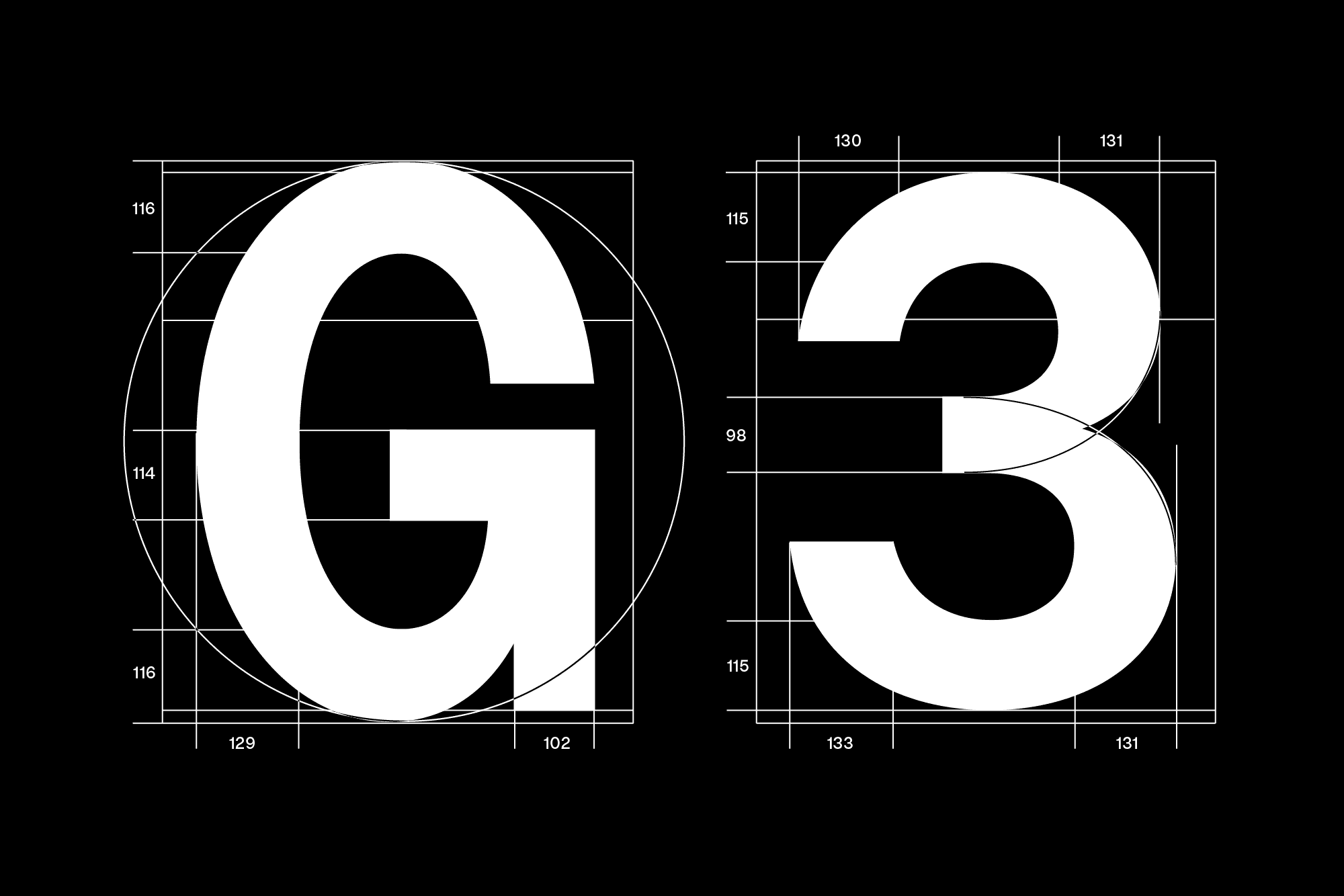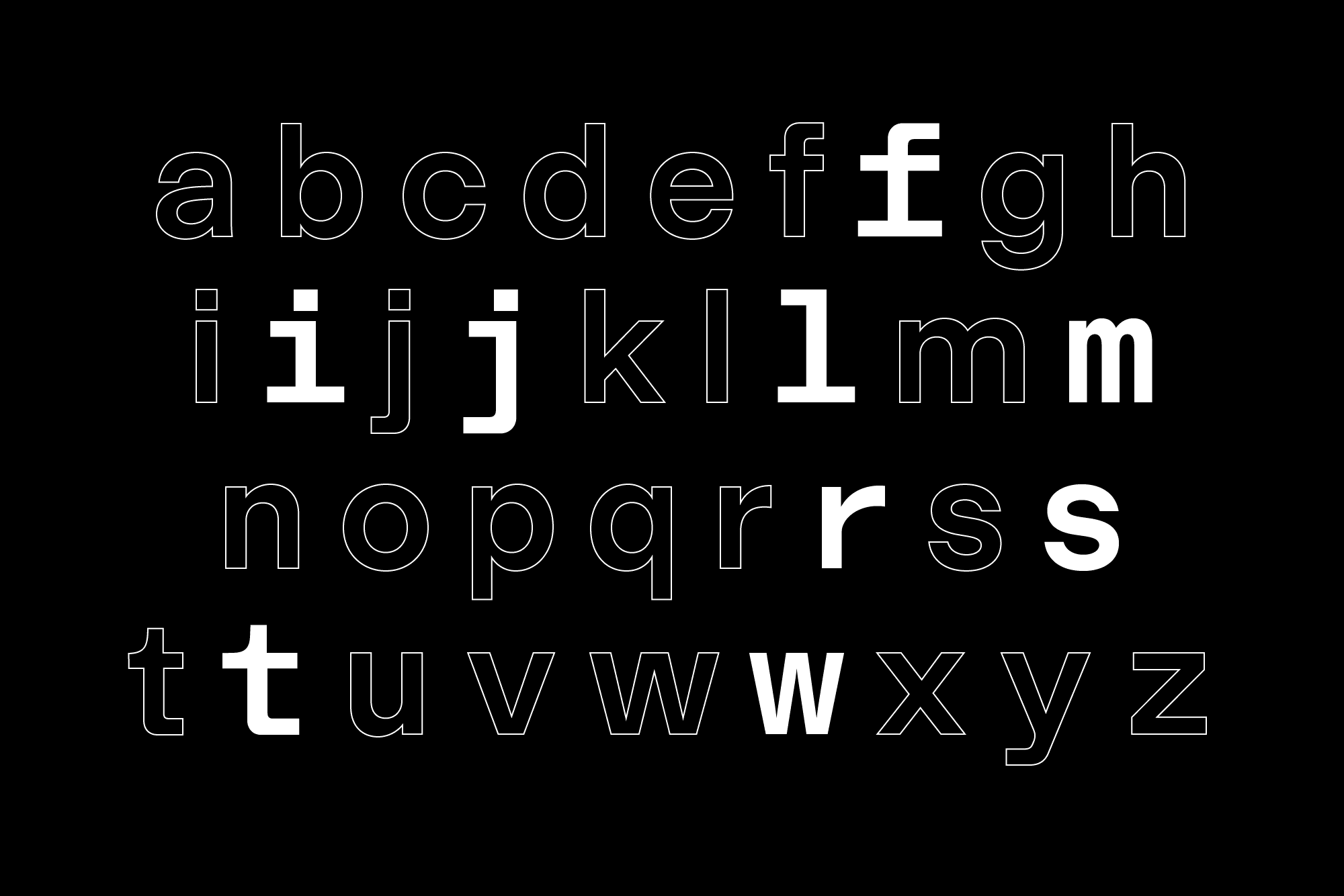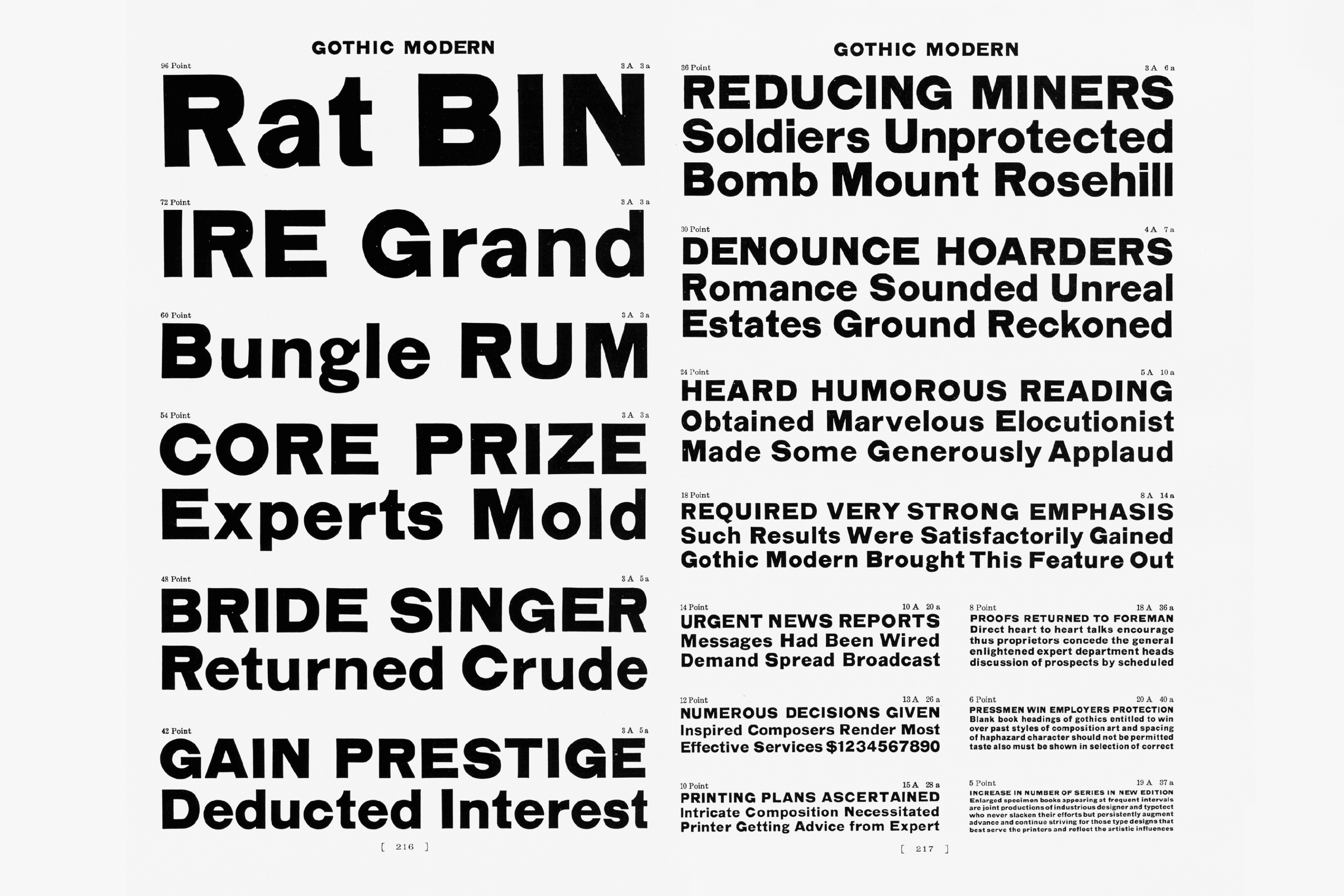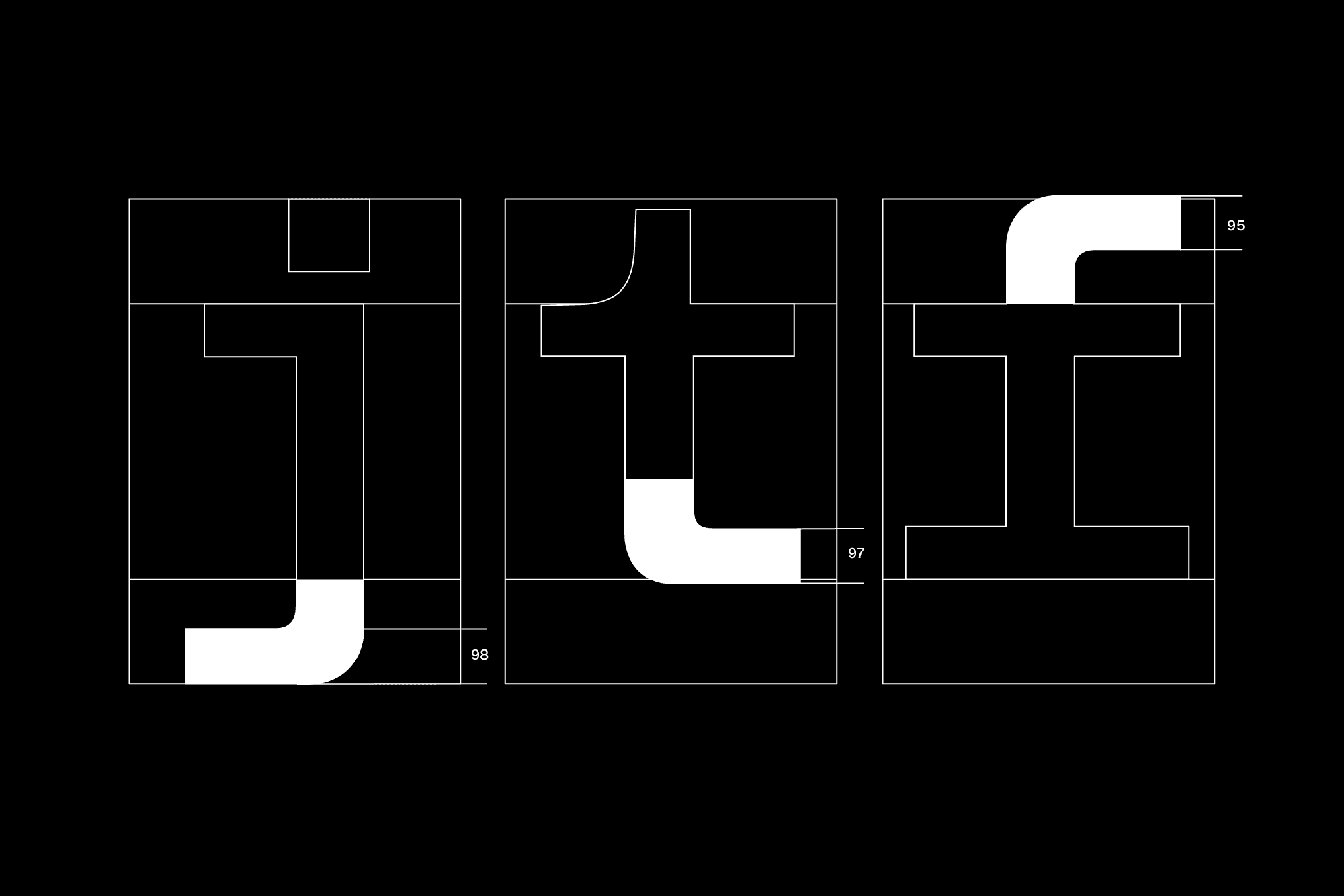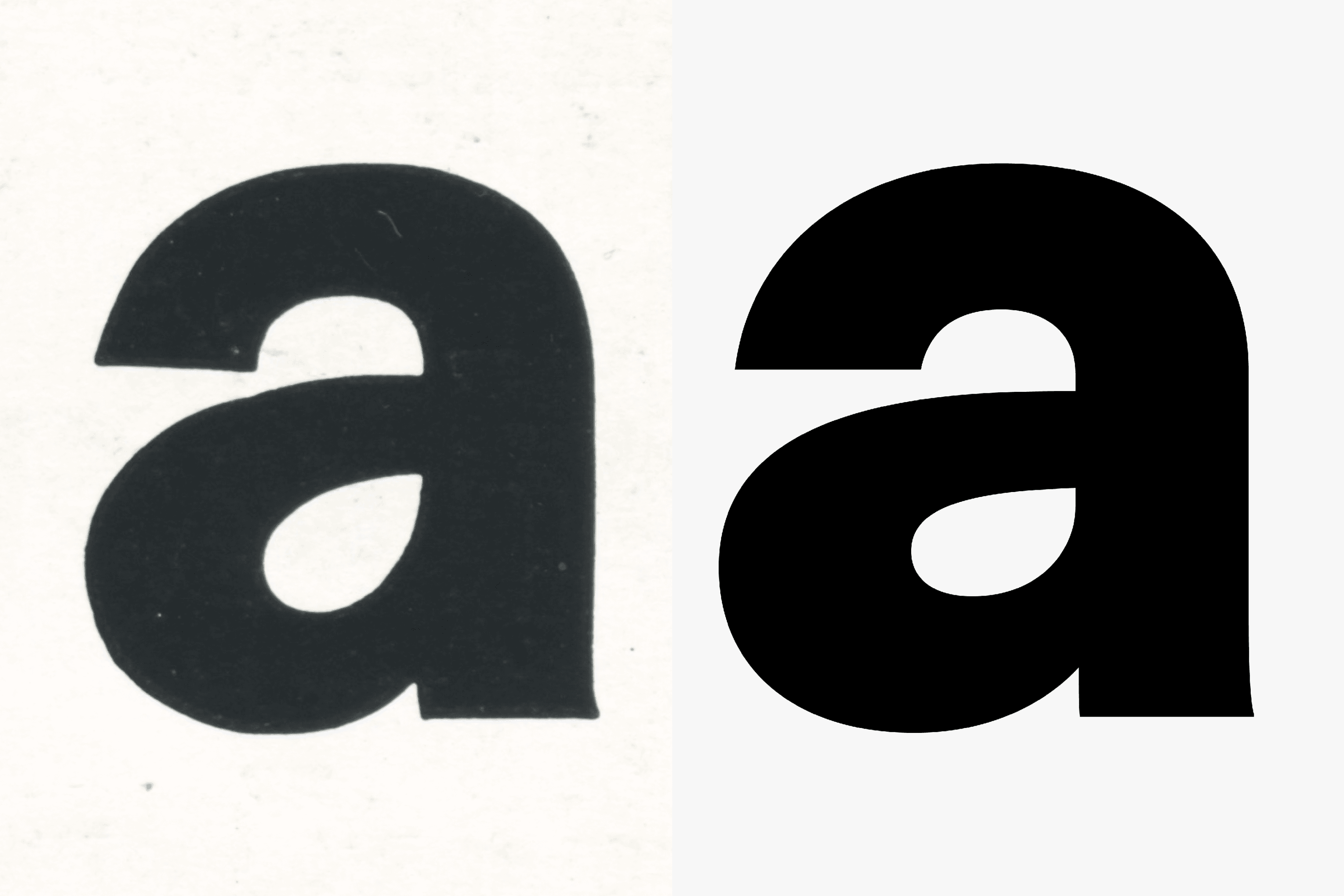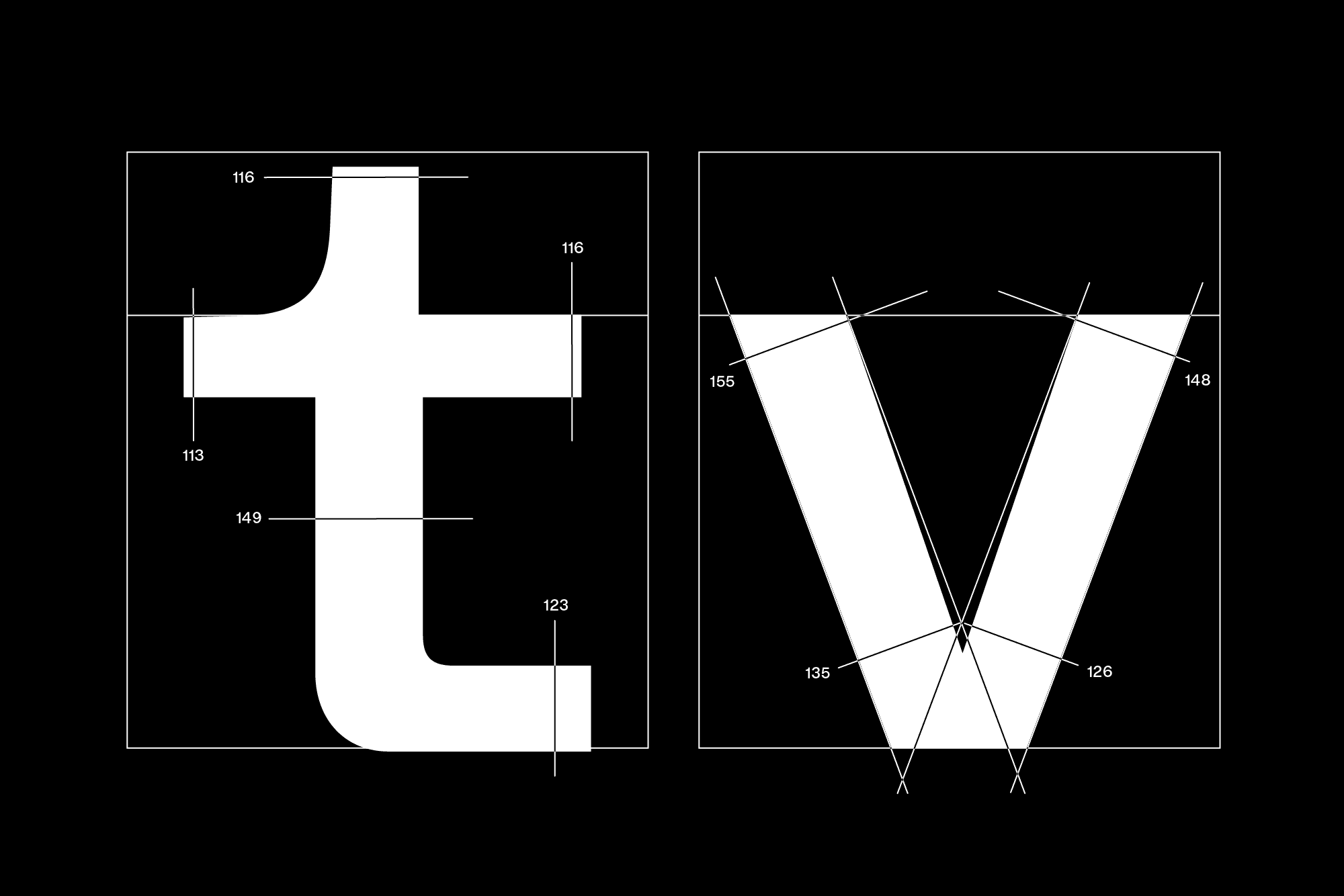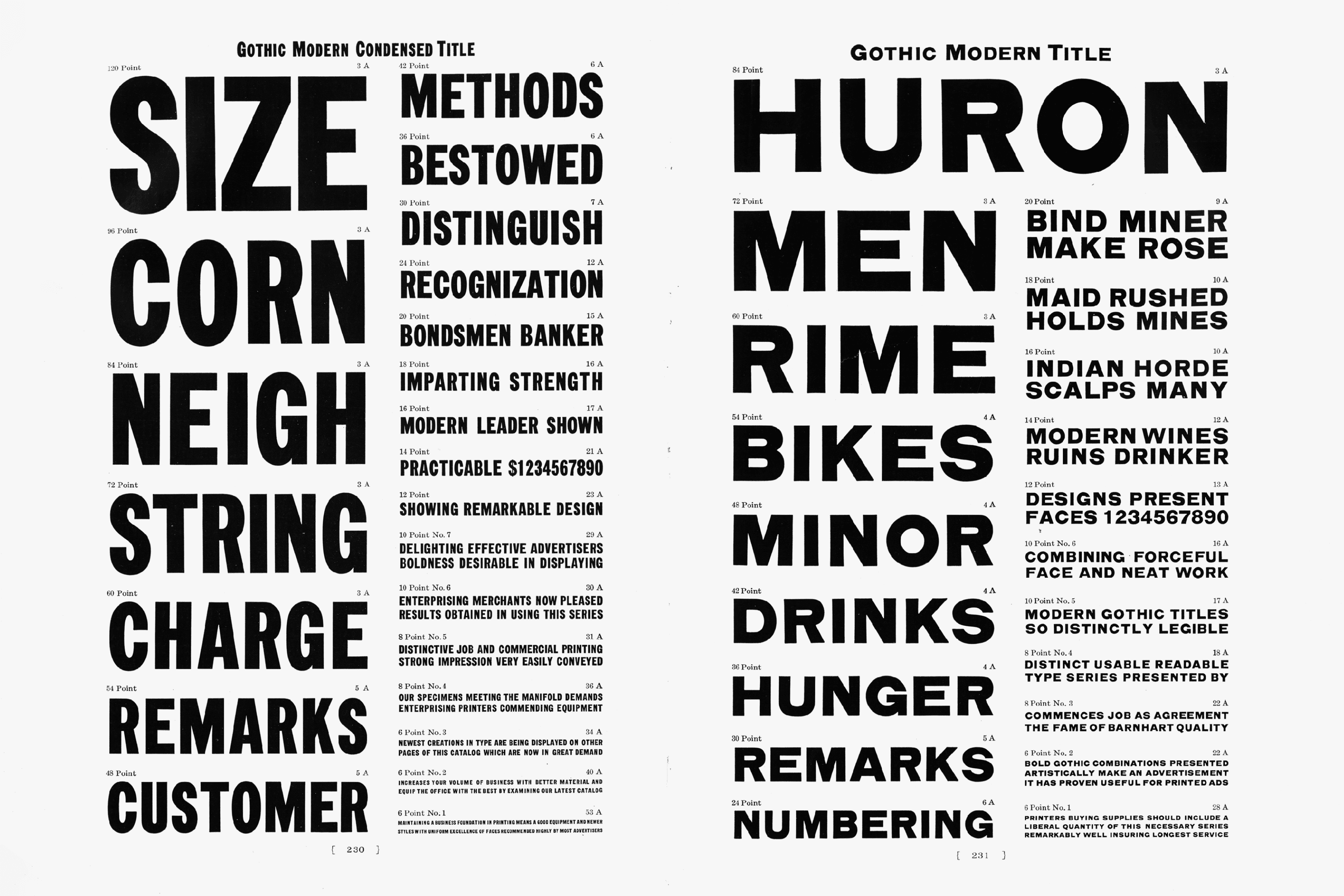
Modern Gothic Mono is a new addition to the Modern Gothic Family, providing a monospaced variation for grid based typesetting for tax spreadsheets, invoices or pieces of code. Modern Gothic Mono maintains the DNA of the original design while introducing a new flavour with its adaptations of certain characters, such as G, M, or f, t. All of the styles included in the Mono are designed to work effortlessly together with the original Modern Gothic, forming a universal workhorse family.
MG Mono is an all-purpose typeface with American roots, suitable for a wide range of applications, from subway signage to baseball headlines. The family follows a graded, hourglass-shaped model in terms of widths – the regular weight intended for typesetting long texts has been made narrower, while the thin cuts are wider for more display-oriented applications. This allows typographers to create efficient copy-fit sections using the lighter cuts, while preserving the original gothic flavor in the bolder style for moments where it can flex its strong character. Within the family, there is only one interpolation, each weight being fine-tuned for its intended use.
In 2016 the process of synthesising the ’merican roughness of Gothic Modern into Modern Gothic was initiated. Bentzen has skillfully navigated the classic challenge in type design – how to keep the sauce pungent, without preservatives; dropping a sans in 2021, sans an expiration date? The capitals have been optically corrected to avoid the classically heavy caps typical of the genre, at the same time preserving their character by maintaining their wide-set frame inherited from the gothic style, and perhaps, a mid-western American diet. I’ll have the wings, the deep dish, and an XL Coke. No body shaming (today is my cheat day, we hit the gym tomorrow), and also – I was born this way – born in the USA.
- Fractions
- locl
- Localized Forms
- numr
- Numerators
- ordn
- Ordinals
- salt
- Stylistic Alternates
- sinf
- Scientific Inferiors
Single storey a (ss01)
Leaks
Double storey g (ss02)
Signal
Alternate J (ss03)
Jobs
Contextual Alternates (calt)
–>12x3
Case-sensitive Forms (case)
(AB–C)
Discretionary Ligatures (dlig)
fi fl
Denominators (dnom)
H123
Fractions (frac)
x1/2 x3/4
Localized Forms (locl)
poştă
Numerators (numr)
H123
Ordinals (ordn)
2a 2o
Scientific Inferiors (sinf)
H2O
Subscript (subs)
x123
Superscript (sups)
x123